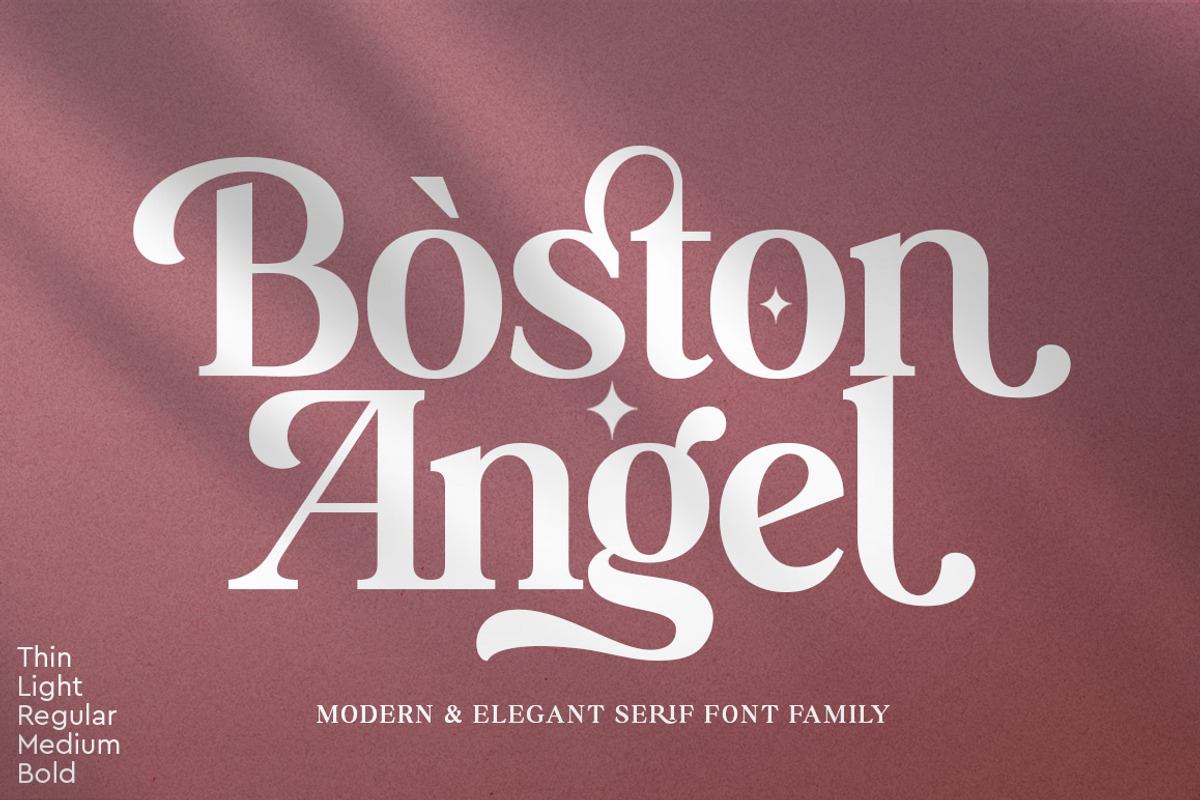
Please note, to use this font for commercial purposes, you must purchase the full version. Boston Angel is a modern and stylish serif font that brings a bold and sophisticated flair to any design. With its clean lines and elegant structure, this font is perfect for creating high-end logos, magazine headings, websites, and more. It offers a refined and timeless look, making it ideal for both professional and personal projects. Test it out and enjoy free download access for personal use. Whether you're designing a luxury brand or a captivating advertisement, Boston Angel Serif Font Free Download gives you a preview of its versatility before committing to the paid version. Enhance your design projects with the classy and bold Boston Angel font today.